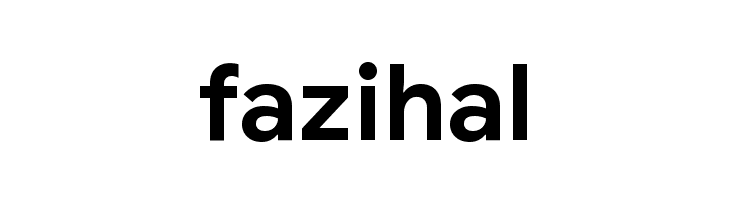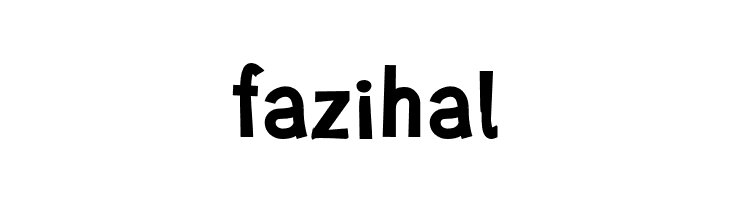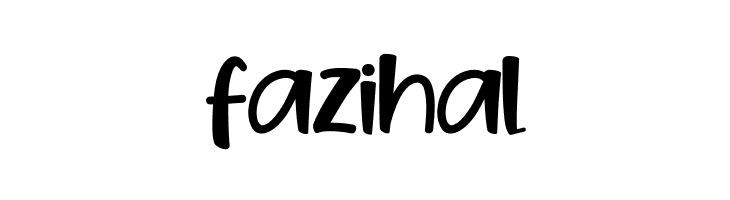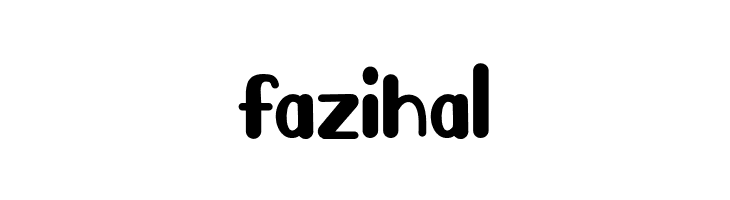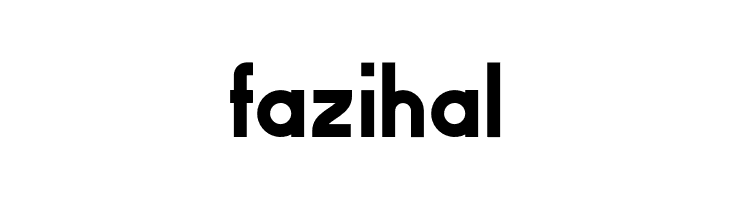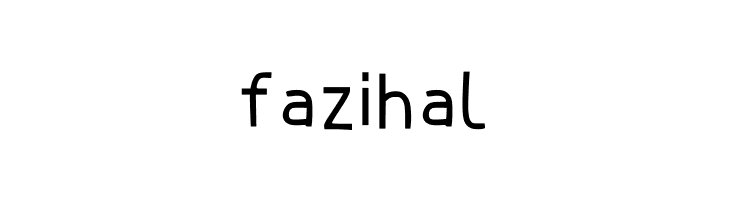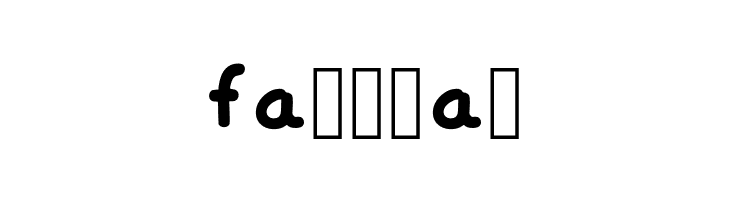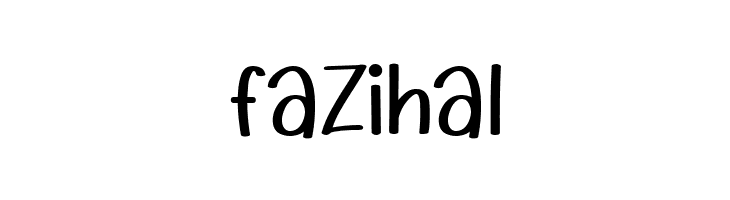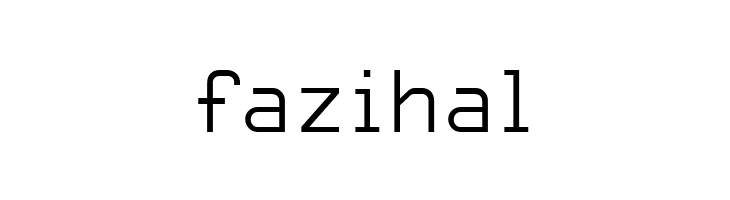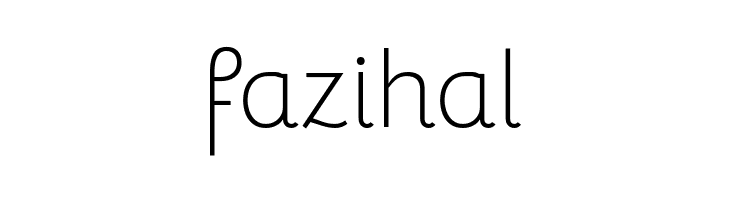
A bold, modern sans-serif font with geometric shapes and consistent stroke width.
A bold, playful font with a cartoon-like style and rounded characters.
A playful, bold, and hand-drawn style font with rounded characters.
A bold, playful script font with rounded edges and a connected design.
A playful, bold font with rounded edges and a friendly style.
A bold, modern sans-serif font with geometric lines and uniform width.
A playful, rounded font with smooth curves and a friendly appearance.
A playful, handwritten font with a whimsical and friendly style.
A playful, modern font with rounded, smooth characters and a light, airy feel.
A bold, handwritten font with dynamic strokes and a lively appearance.
A modern, geometric sans-serif typeface with medium contrast and excellent readability.
A modern, clean font with a subtle italic slant and consistent stroke width.
A clean, modern typeface with consistent stroke width and excellent readability.
A modern, rounded font with a clean and friendly design.
A modern sans-serif font with rounded edges and balanced spacing.
A modern, rounded sans-serif font with a clean and approachable design.
A clean, modern sans-serif font with balanced letterforms and consistent stroke widths.
A bold, modern sans-serif typeface with clean lines and uniform strokes.
A bold, italic typeface with a dynamic and modern style.
A bold, modern sans-serif font with clean, geometric letterforms.
A clean, modern sans-serif font with excellent readability and versatility.
A modern, light sans-serif font with clean lines and balanced proportions.
A thin, modern font with clean lines and a minimalist style.
A bold, italic sans-serif font with a modern and professional look.
A bold, modern sans-serif font with clean lines and strong readability.
A bold, modern sans-serif font with clean lines and balanced proportions.
A modern, light sans-serif font with clean lines and balanced proportions.
A bold, geometric font with a modern and clean design.
A modern, condensed sans-serif font with uniform stroke width and excellent readability.